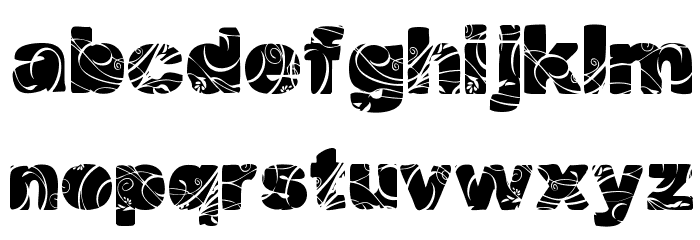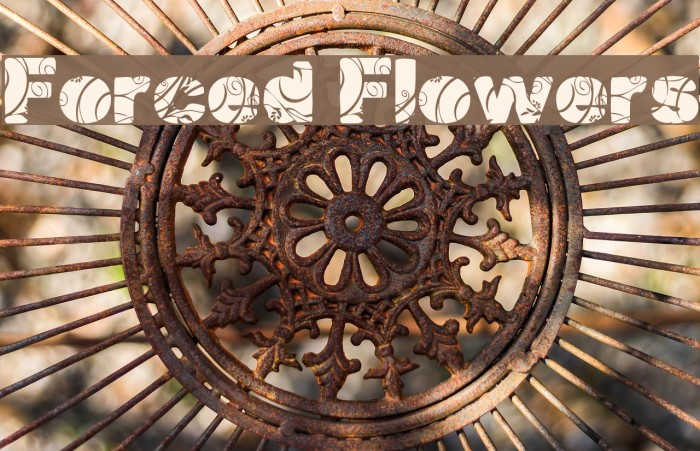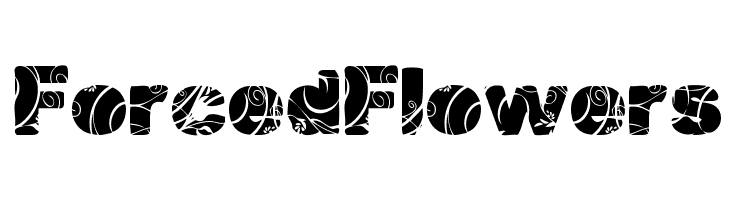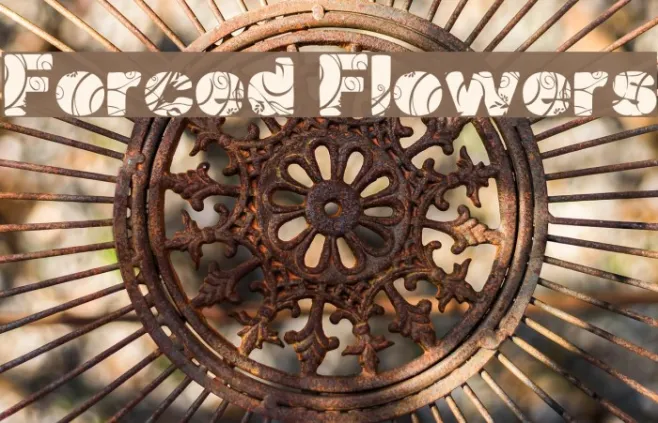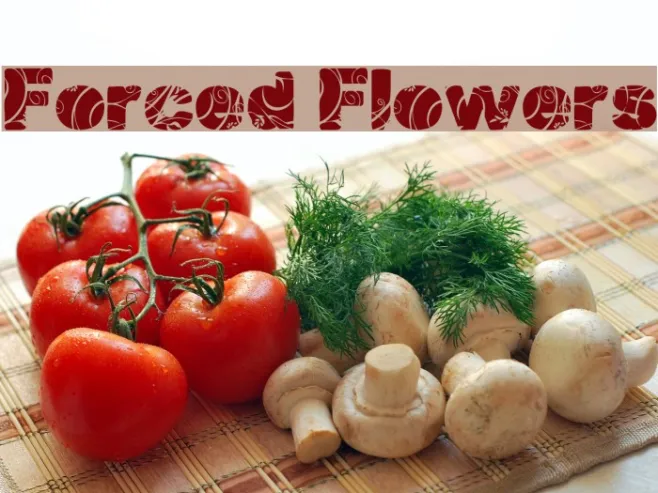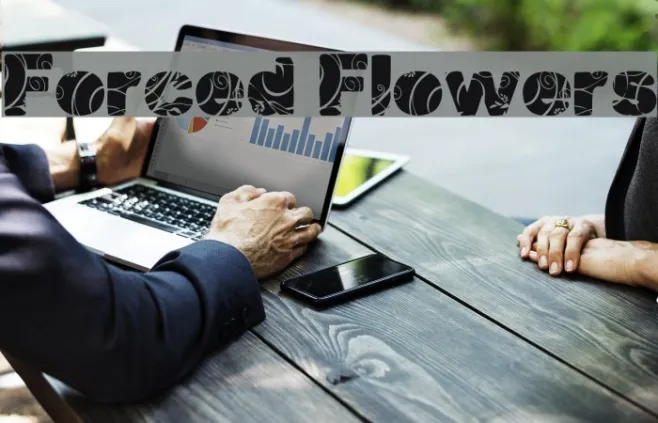
Forced Flowers
This font is a decorative display typeface characterized by its bold and intricate floral patterns embedded within each character. The letters are robust and filled with swirling floral motifs, creating a striking visual impact. The uppercase and lowercase letters maintain a consistent style, with each character featuring unique floral embellishments. The numbers and special characters also follow this ornate design, ensuring a cohesive look across all glyphs. This font is ideal for projects that require a strong visual presence and a touch of elegance.
A bold decorative font with intricate floral patterns in each character.
- Proposed Projects: Ideal for wedding invitations, greeting cards, posters, and branding materials that require a decorative and elegant touch.
- Contrast: High
- Overall Style: Decorative
- Use Case: Headlines, Logos, Decorative text